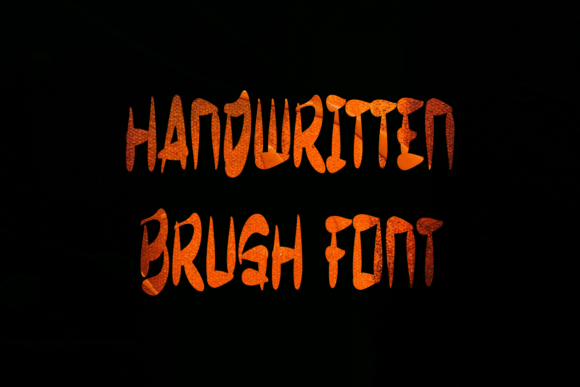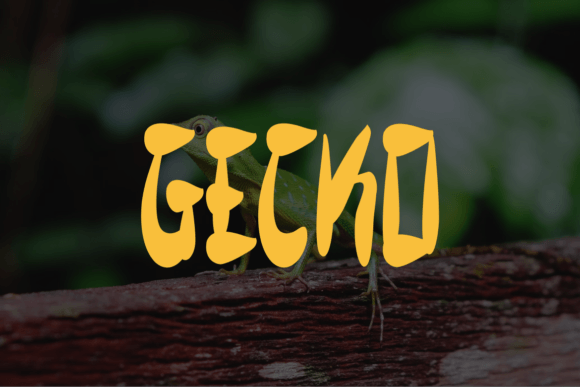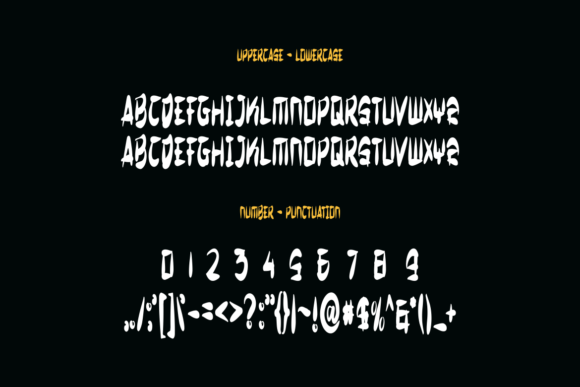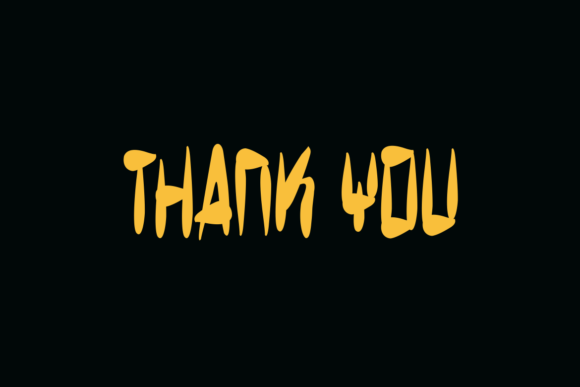
Introduction to Jackzinc Font
Have you ever been brainstorming for a creative project, and suddenly, you need a font that screams personality and energy? I’ve been there too, and that’s exactly when I stumbled upon the Jackzinc Font. Its bold, handwritten style instantly caught my attention, and I knew I had to dive deeper.
With its thick, playful strokes, the Jackzinc Font is perfect for designers looking to add a personal touch to their designs, whether it’s a poster, logo, or greeting card. What I love about this font is its versatility – it’s great for both digital and print projects, and its transparent background makes it easy to work with.
Key Features of Jackzinc Font
- Features a transparent background, making it easy to customize and integrate into designs
- Unique, modern design that sets it apart from other fonts in its class
- Perfect for use in logos, branding, and other design elements requiring a clean, minimalist aesthetic
- Designed to be highly legible across a range of resolutions and screen sizes
As a designer, I’m always on the lookout for high-quality fonts to elevate my creative projects. The Jackzinc Font has been a recent discovery, and I’m excited to share my thoughts on it.
Here are some things that work well with the Jackzinc Font: ✨
- Unique and modern design aesthetic
- Transparent background, allowing for easy layering and customization
Overall, I’m impressed with the Jackzinc Font and its potential to enhance creative projects. While it has some limitations, it’s a great free design resource that’s worth exploring further.
The Jackzinc Font is a high-quality design resource that offers a free download with a transparent background. This versatile font is ideal for creative projects that require a unique and modern touch.
The Jackzinc Font is ideal for creative projects that require a modern and unique touch, such as:
- Graphic design and visual identity